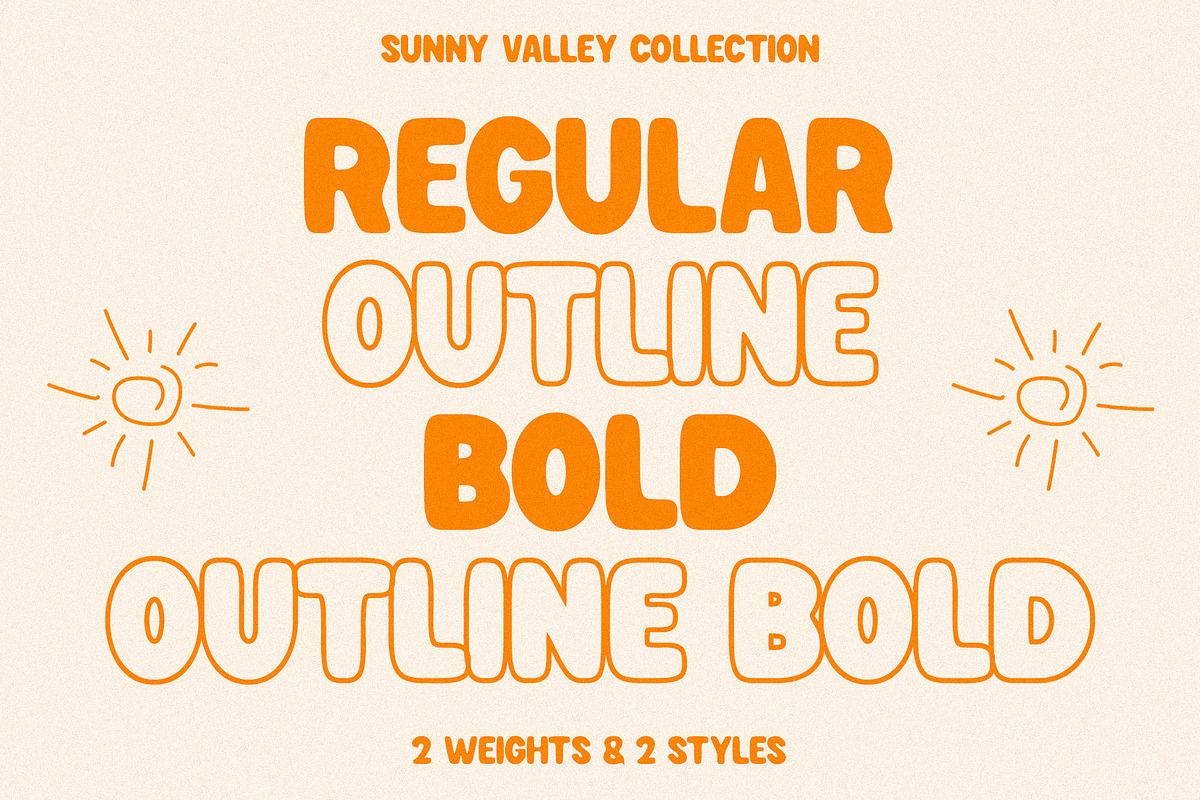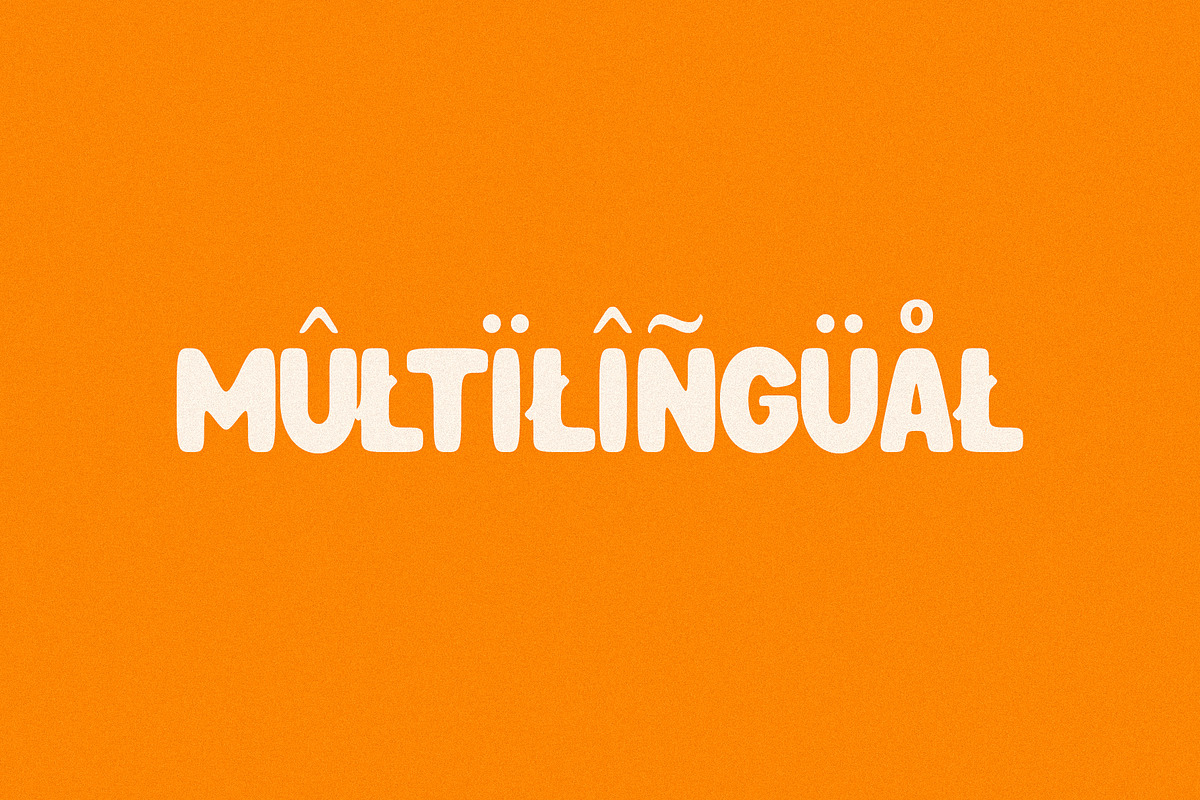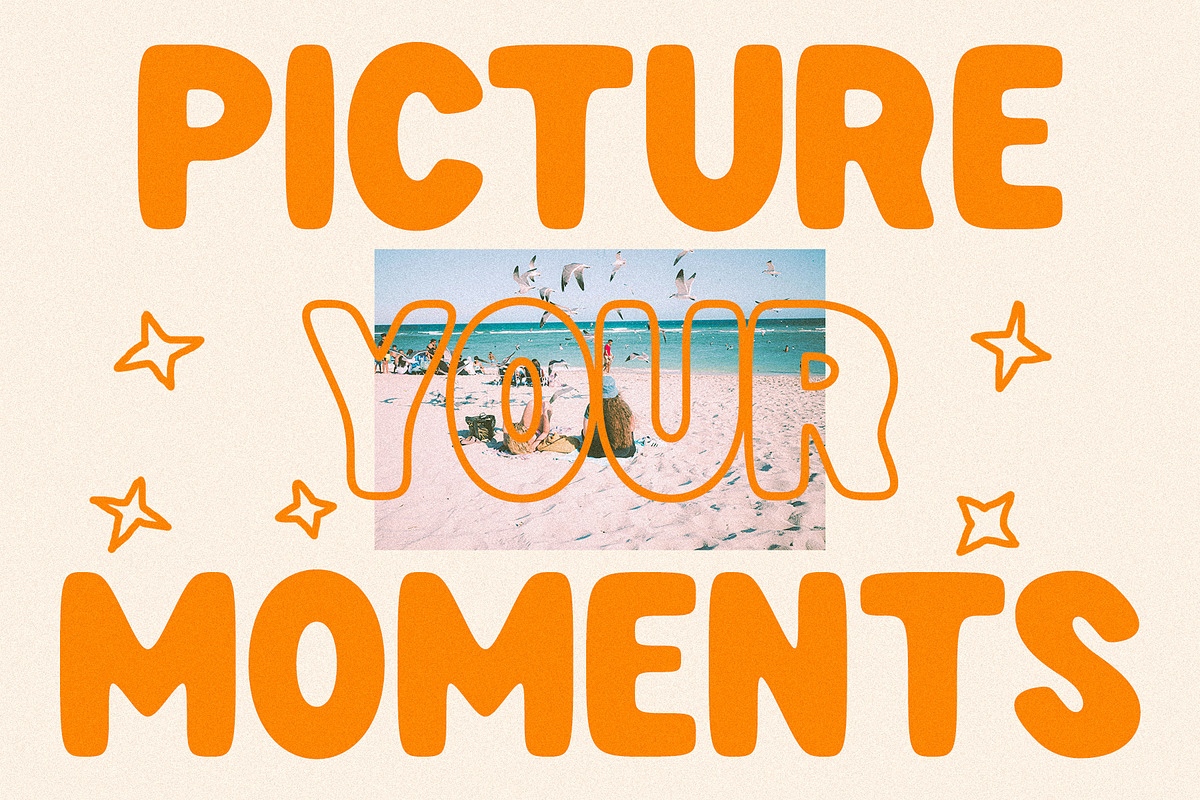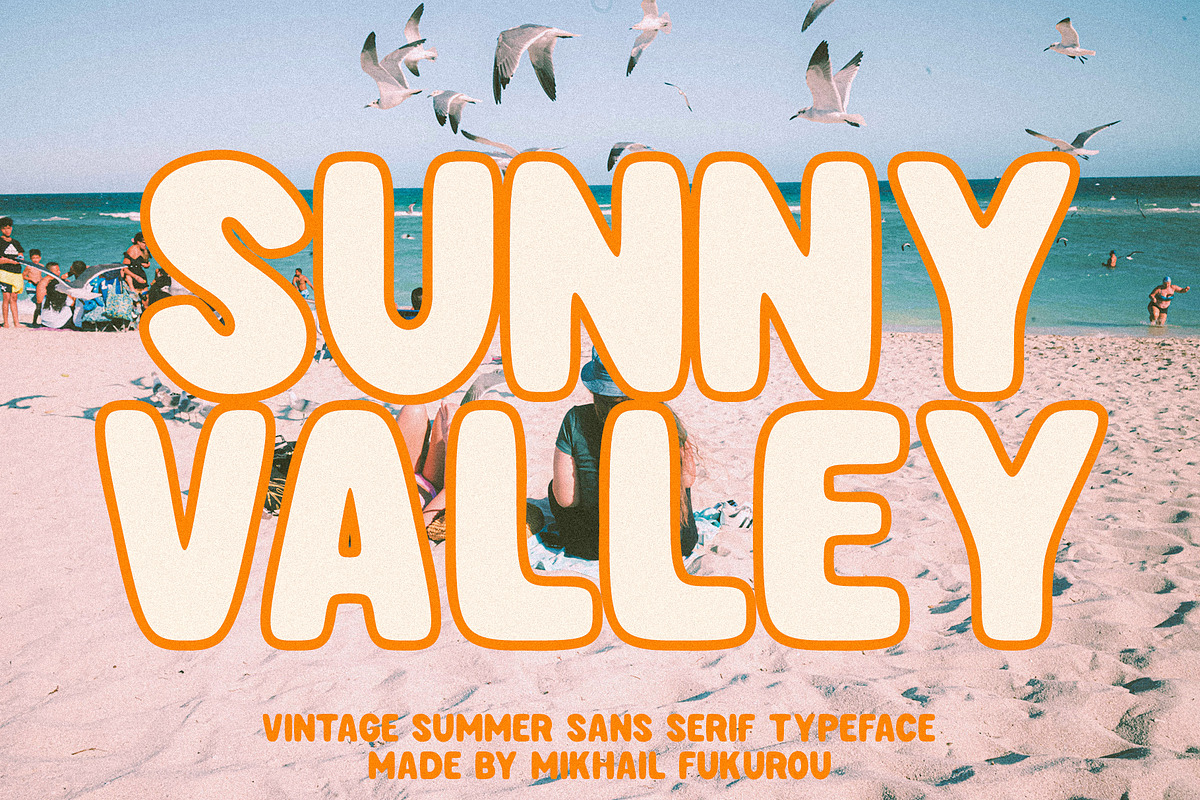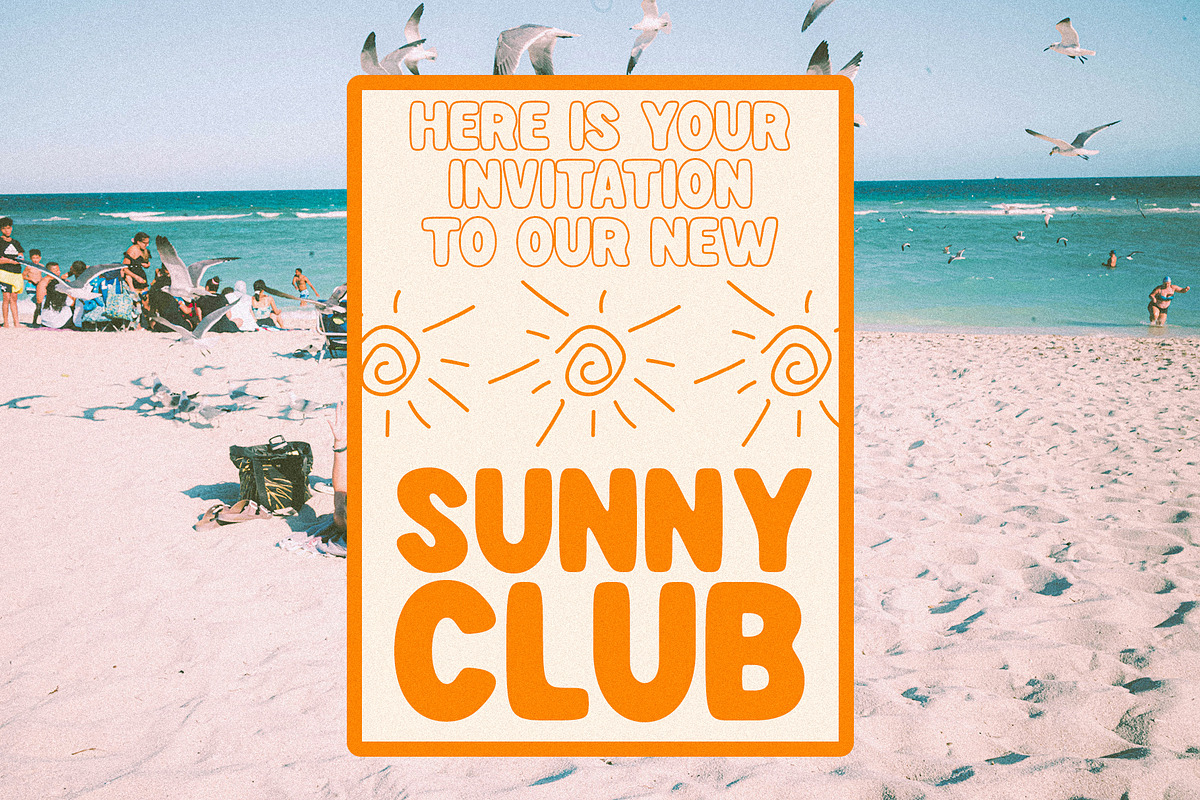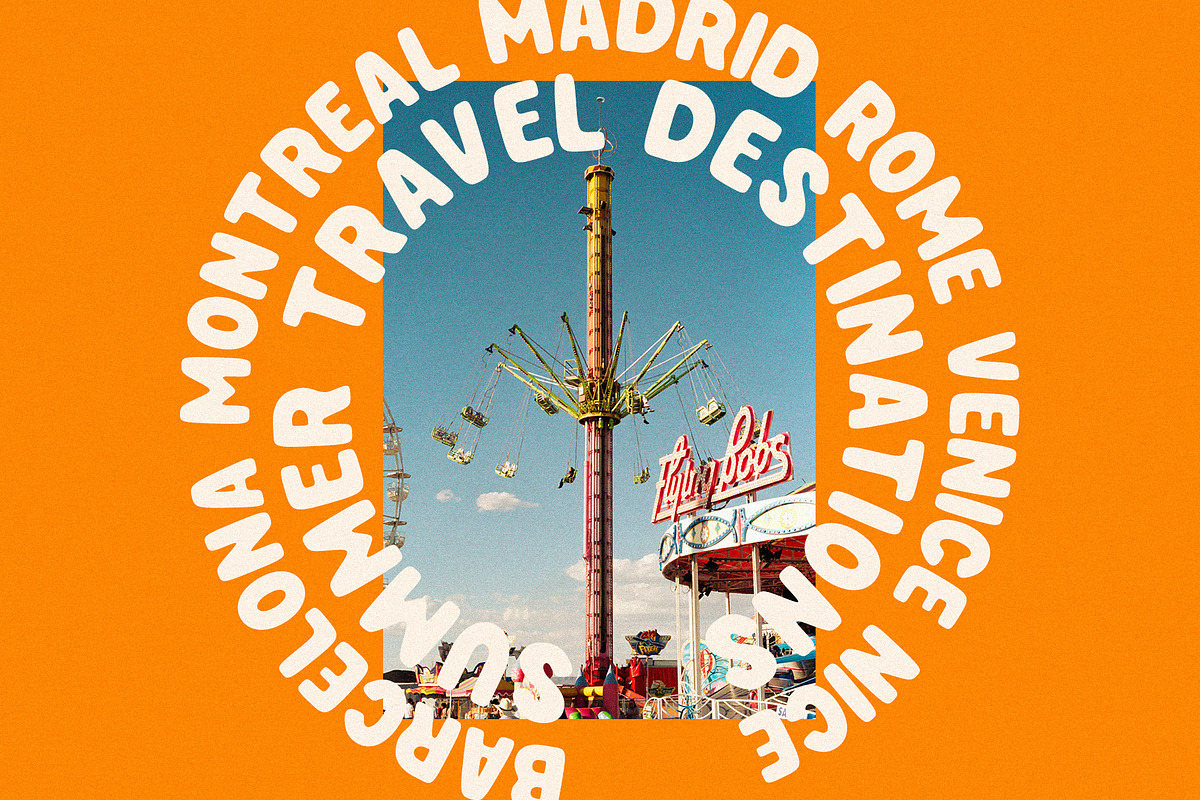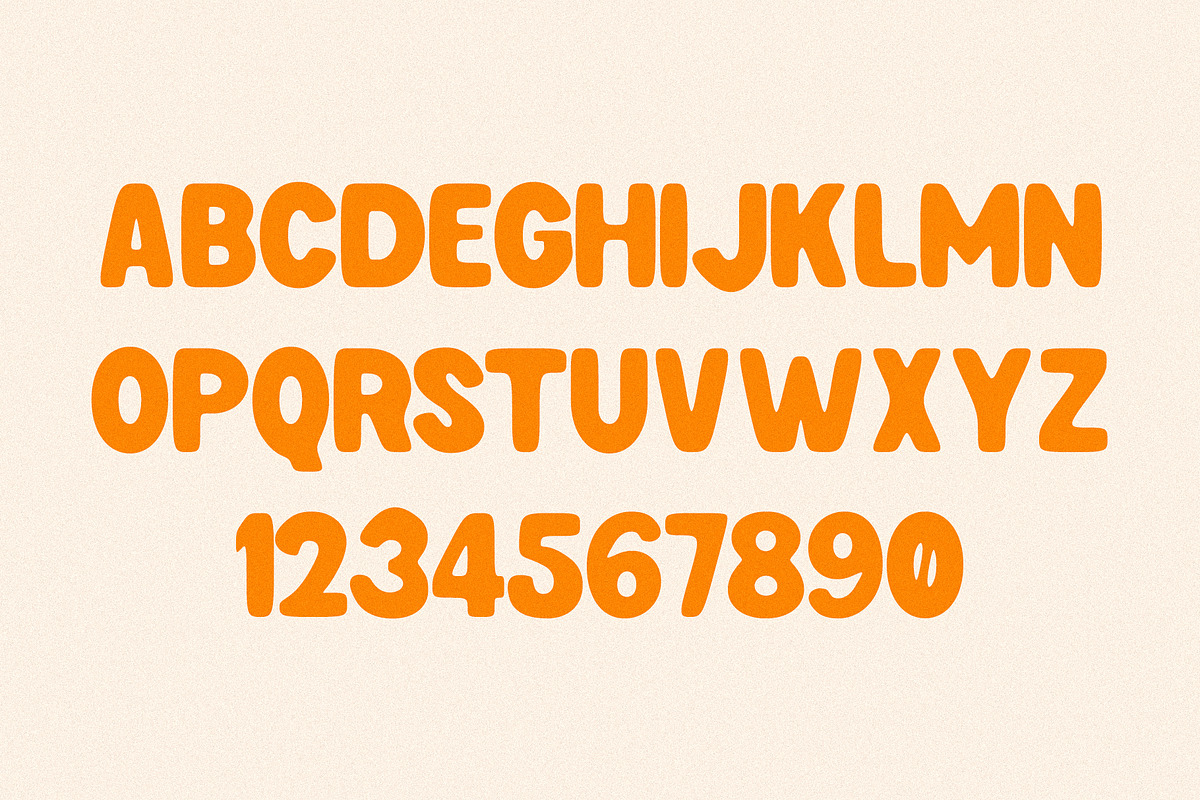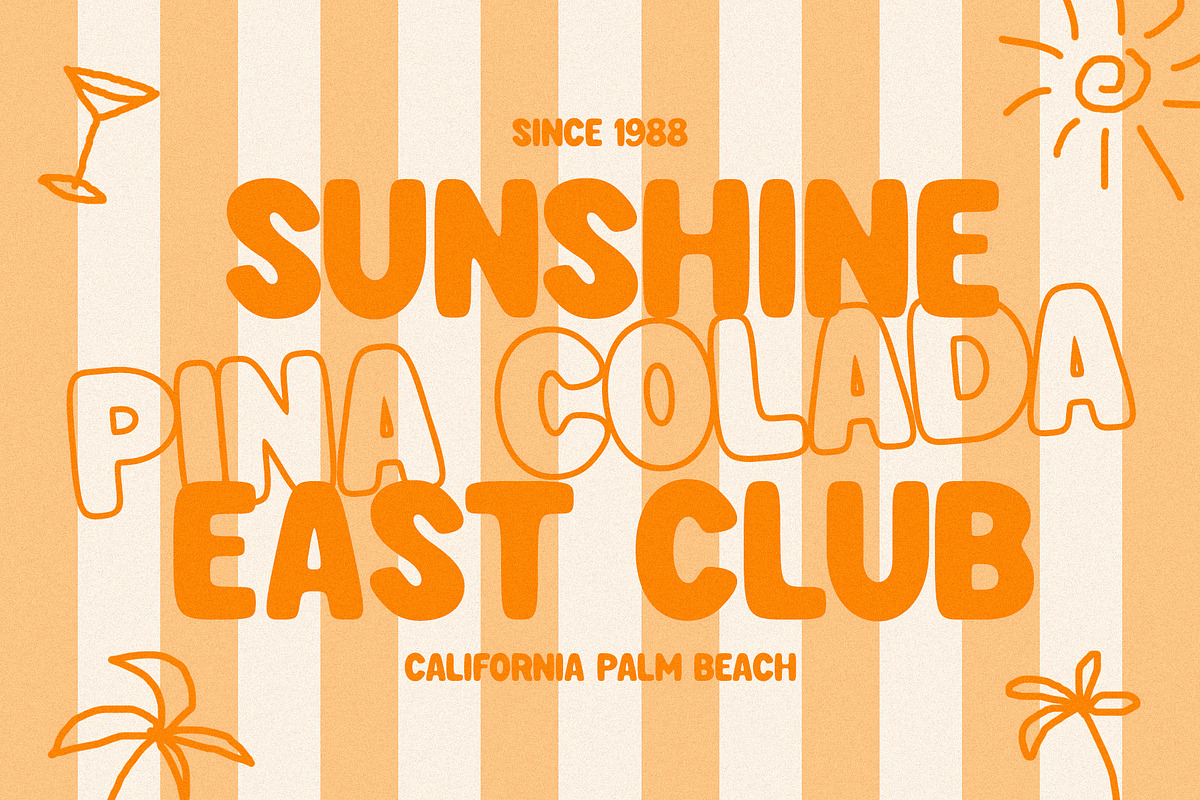
Sunny Valley - Vintage Retro Sans
Sunny Valley is a vintage retro sans serif font designed to bring bold, nostalgic character to your creative projects. Featuring Regular, Outline, Bold, and Bold Outline styles, it offers plenty of flexibility for eye-catching logos, branding, posters, packaging, apparel, social media graphics, headlines, and more. With its clean letterforms and classic retro inspiration, Sunny Valley is perfect for creating timeless designs that stand out with warmth, personality, and vintage charm.